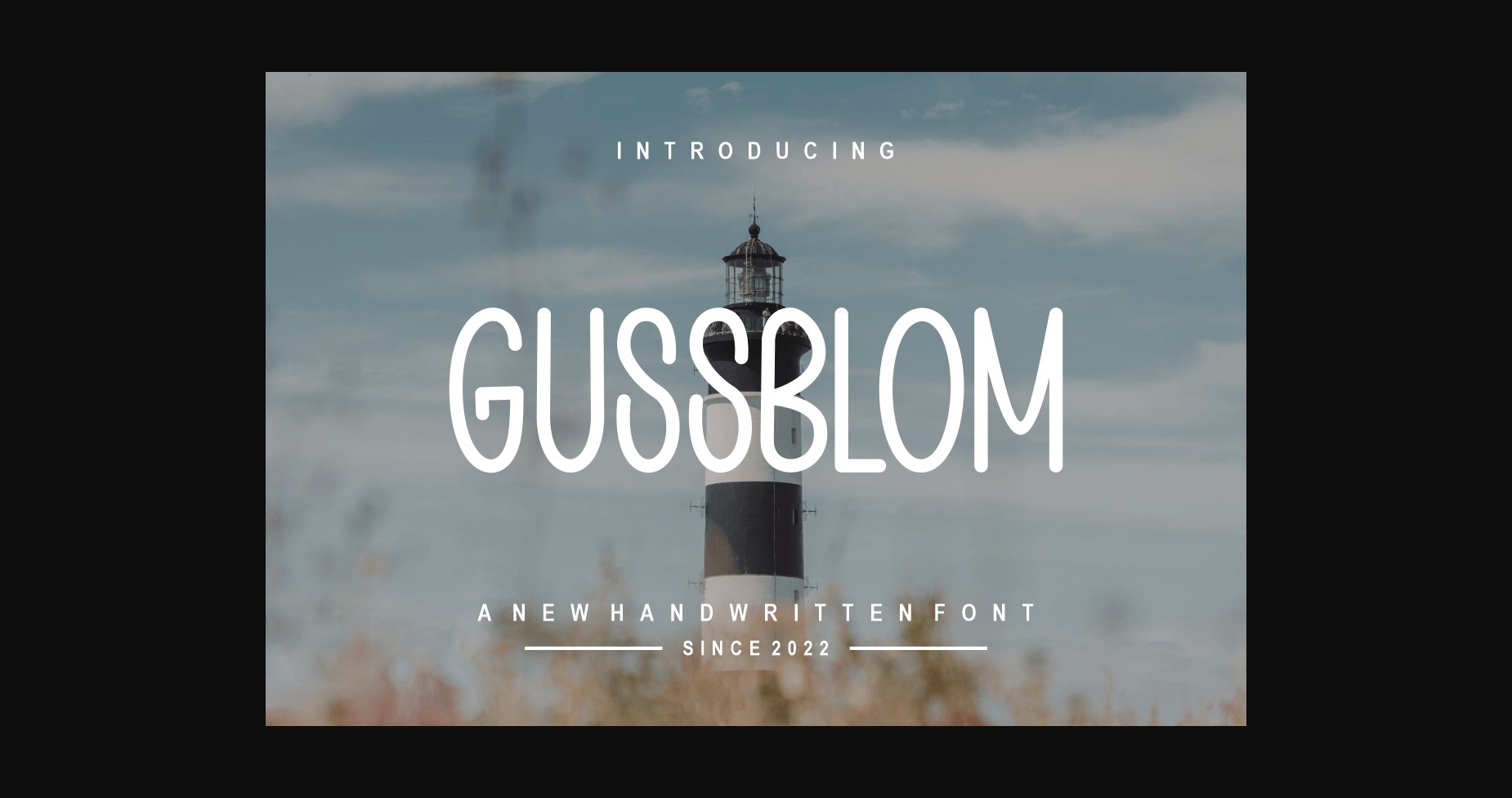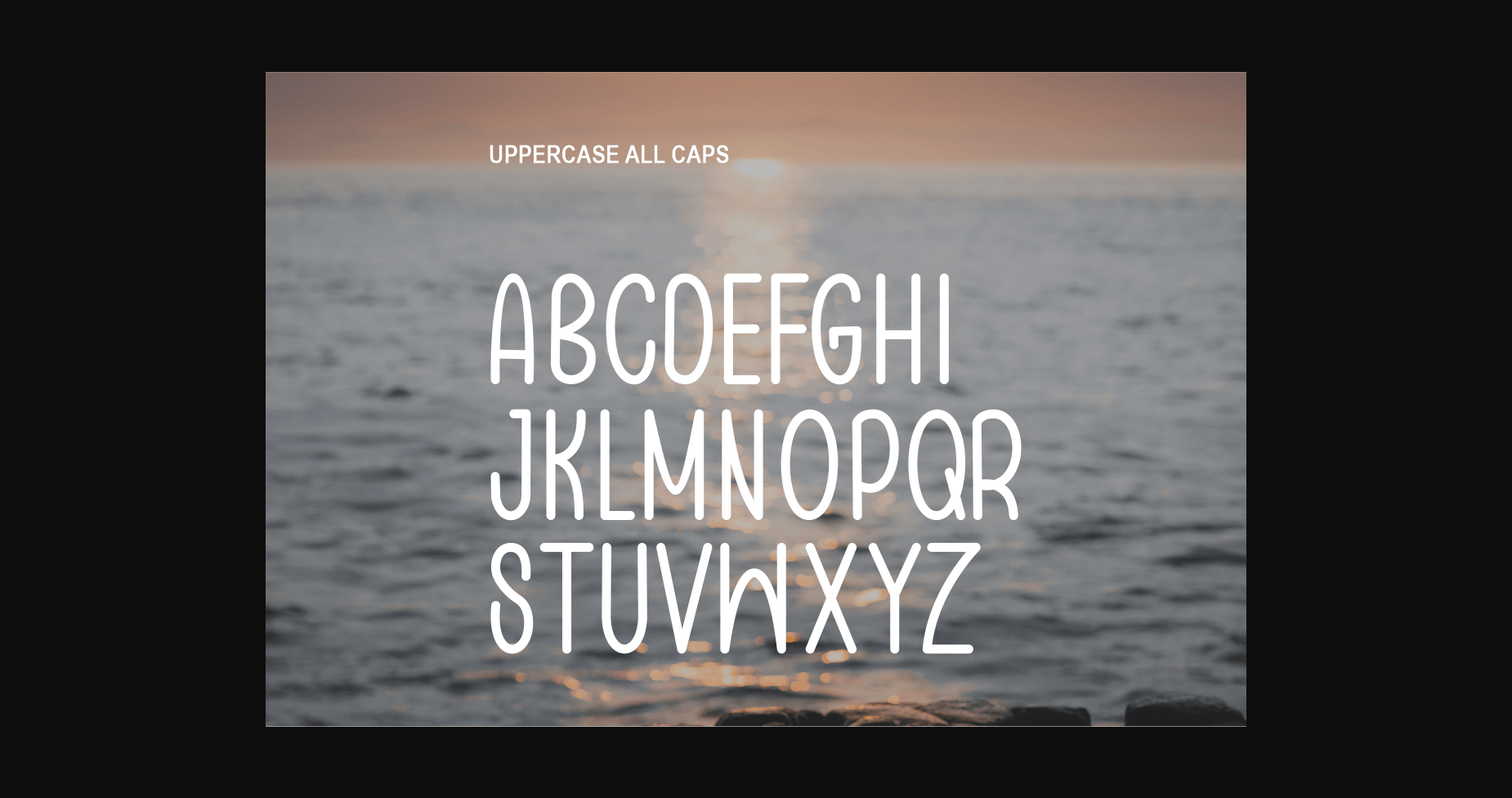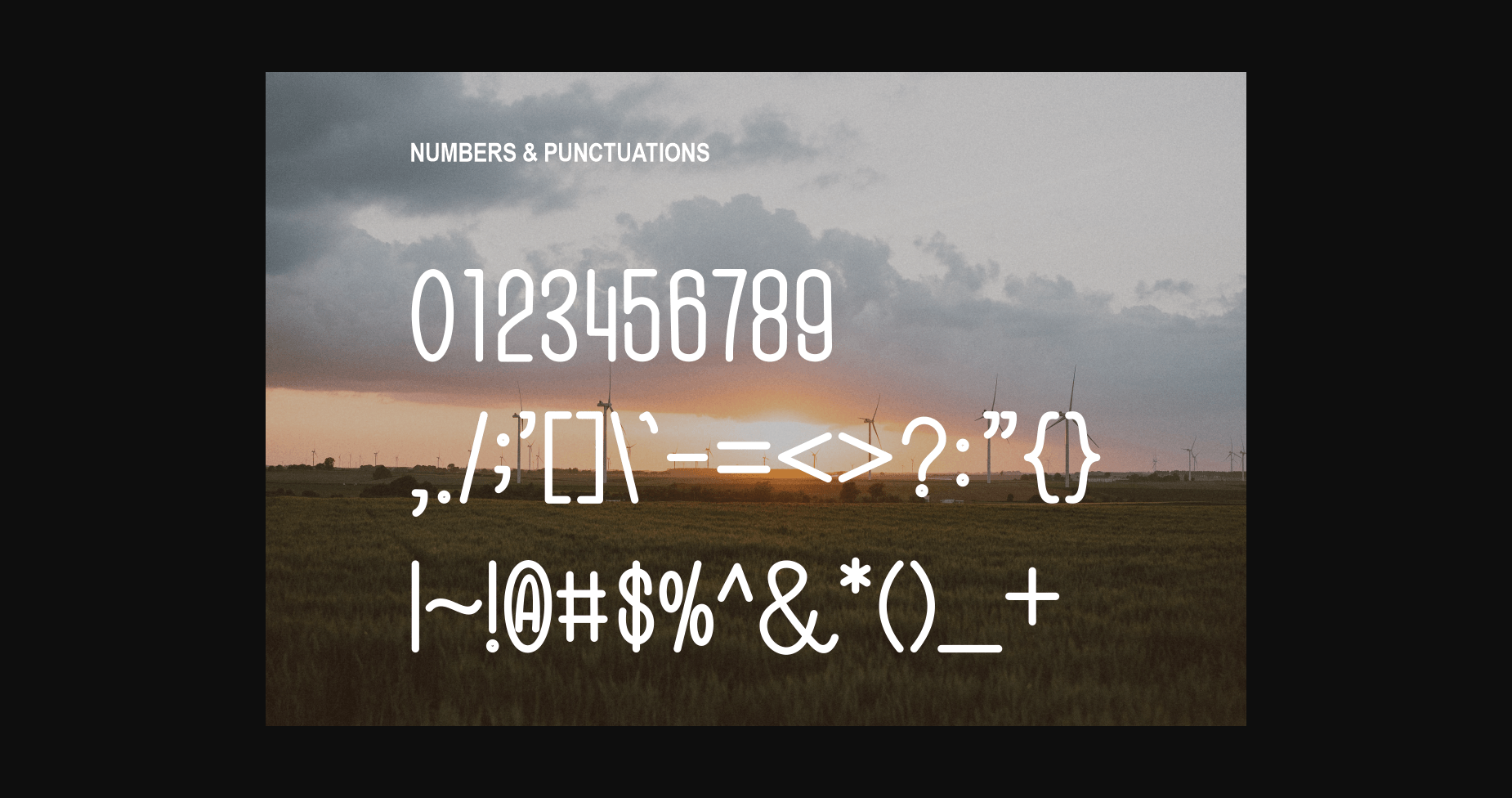
About Gussblom Font
Gussblom is a sweet and elegant sans serif typeface. It retains a classy calligraphic influence while feeling contemporary and fresh. Fall in love with it and take your project to the highest level!